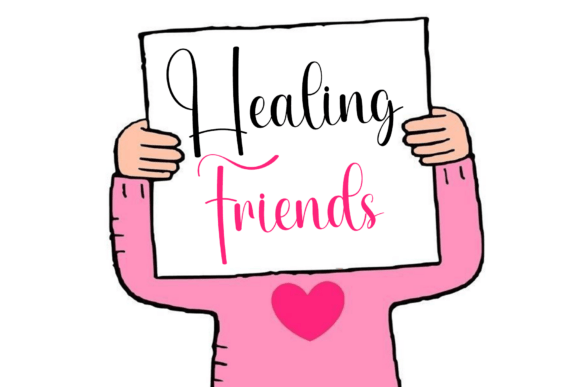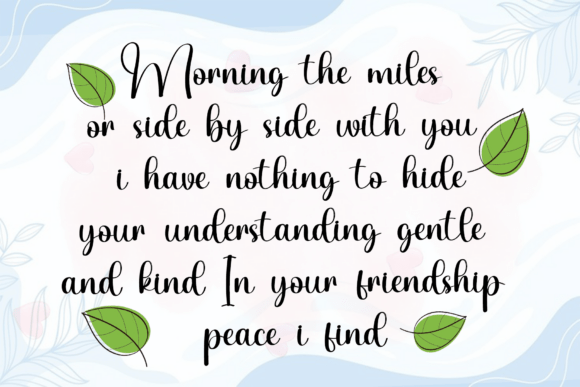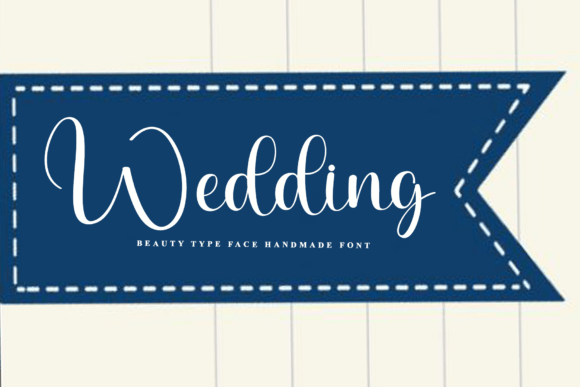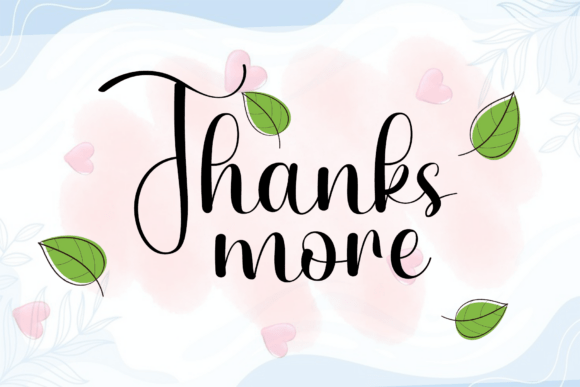
Introduction to Mommy Grandma Font
As I sat in my studio, surrounded by scraps of paper and half-finished projects, I stumbled upon the perfect font for my latest creative endeavor. The Mommy Grandma Font had caught my eye, and I couldn’t wait to see how it would bring my design to life. With its unique, handwritten feel, I knew this font would add a touch of warmth and personality to my project.
For designers, finding the right font can be a challenge. That’s why I’m excited to share my discovery with you. The Mommy Grandma Font is a high-quality, free download that’s perfect for a wide range of creative projects. Whether you’re working on a logo, branding, or quote, this font is sure to impress. Its transparent background and beautiful, cursive script make it a valuable resource for any designer looking to add a touch of elegance to their work.
With its timeless, classic feel, the Mommy Grandma Font is a must-have for any design enthusiast. So, let’s dive in and explore the world of this lovely font, and discover why it’s a valuable addition to any design resource collection.
Key Features of Mommy Grandma Font
• Unique, hand-drawn design ideal for creative projects, including children’s books, greeting cards, and scrapbooking.
• High-quality, scalable font with transparent background, perfect for use on various design resources, including digital and print materials.
• Includes a range of font styles and weights, including bold and italic variations.
• Designed with a playful, whimsical feel, making it perfect for projects that require a touch of warmth and personality.
• Size: scalable, making it easy to use in a variety of creative projects, from small text to large headings.
Honest Review: Mommy Grandma Font
I recently stumbled upon the Mommy Grandma Font and I must say, it’s been a game-changer for my creative projects. The free download made it an instant winner in my book.
Here are some things that work well: ✨ High-quality design, ✨ transparent background, and ✨ versatile font styles that cater to various design needs.
As a designer, I appreciate the attention to detail and the thoughtfulness that went into creating this font. It’s perfect for creating a warm and inviting atmosphere in your designs.
• High-quality design
• Transparent background
• Versatile font styles
However, I did notice a few limitations: ⚠️ Limited font sizes, ⚠️ not ideal for tiny text, and ⚠️ some users might find the font a bit too playful.
Overall, I’m thoroughly impressed with the Mommy Grandma Font. It’s a fantastic design resource that I’ll definitely be using for future projects.
The Mommy Grandma Font is a free download for creative projects, offering a high-quality, unique design element. This font features a transparent background, making it versatile for various applications.
Use the Mommy Grandma Font in creative projects such as invitations, posters, and social media graphics. To get the most out of it, experiment with different font sizes, colors, and styles to create a unique look.